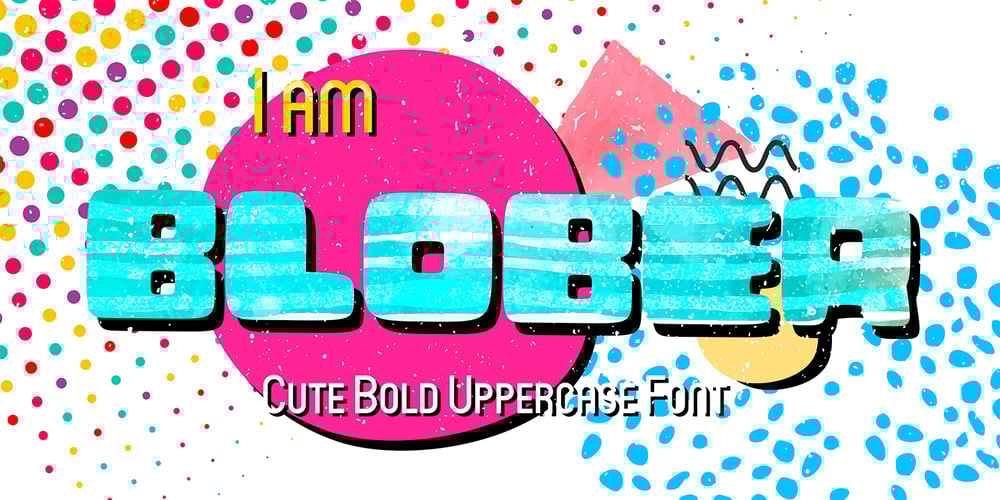
Blober Font Family was designed by Vladimir Tsagolov and published by LomoHiber. Blober contains 2 styles and family package options. I’m proud to present my Blober. He is a cute young font which will be helpful if you are going to design something cute and lovely. Fill him with pattern or texture and Blober will reflect the emotion in any way you want.